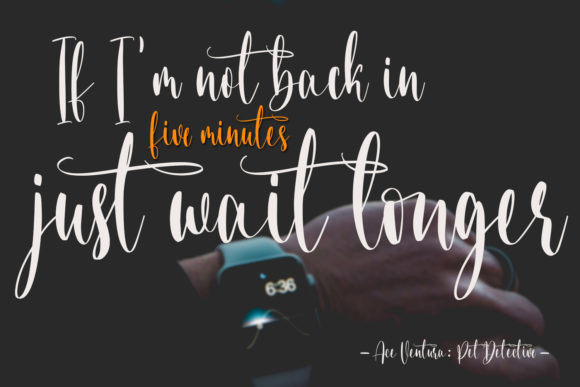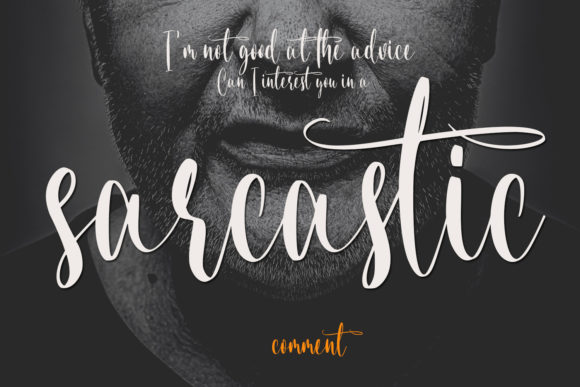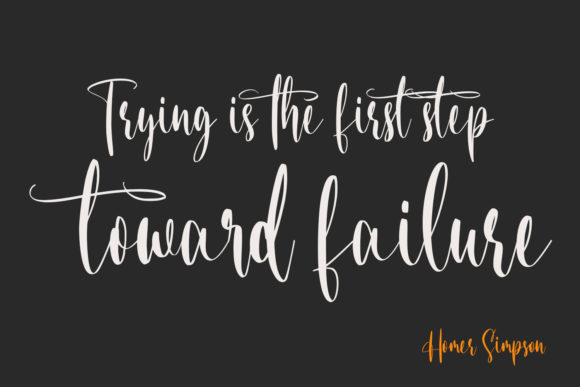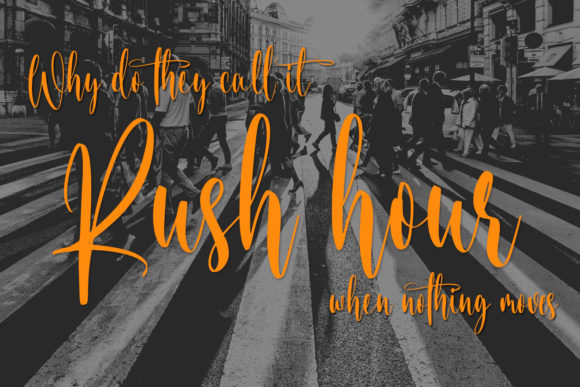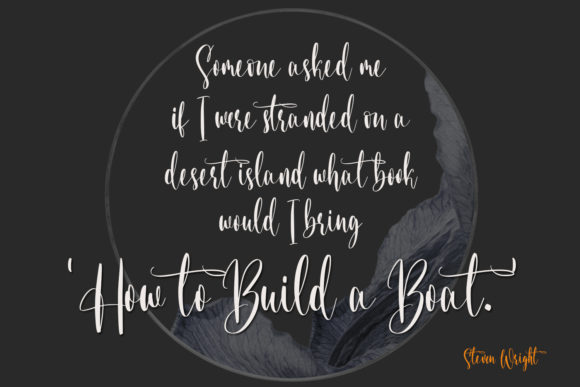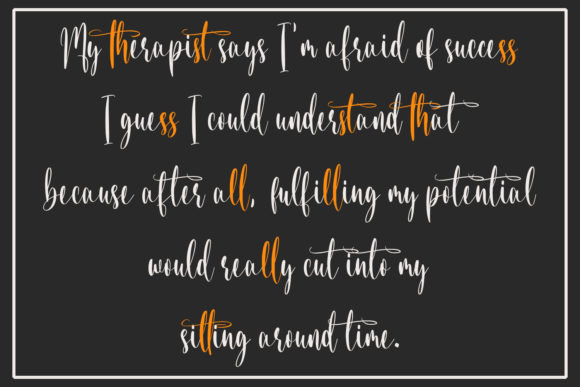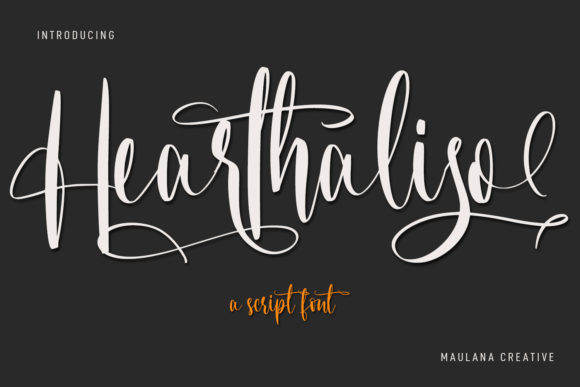
Hearthaliso Font: Elevate Your Designs with Elegance and Sophistication
In the world of typography, fonts play a crucial role in conveying the tone and personality of a design. For designers and crafters seeking to add a touch of elegance and sophistication to their projects, the Hearthaliso font is an exceptional choice. This fancy flourishing script font is designed to make a statement, featuring thin yet high contrast strokes, fun characters with ligatures and alternates, and a versatility that makes it suitable for a wide range of applications.
What Makes Hearthaliso Font Stand Out?
Hearthaliso is not just another script font; it’s a carefully crafted typeface that stands out due to its unique characteristics. Its thin yet high contrast strokes give it a luxurious feel, perfect for designs that require a touch of sophistication. The font also includes a range of fun characters, ligatures, and alternates, allowing designers to add personality and flair to their work.
Key Features of Hearthaliso Font
- Thin yet High Contrast Strokes: The font’s strokes are designed to be thin yet highly contrasting, giving it a elegant and refined appearance.
- Fun Characters: Hearthaliso includes a variety of fun and playful characters that can add personality to any design.
- Ligatures and Alternates: The font features ligatures and alternates, allowing designers to create unique and customized text.
- Versatility: Hearthaliso is suitable for a wide range of applications, from branding and advertising to packaging and stationery.
Whether you’re a professional designer or a crafter looking to add a personal touch to your projects, Hearthaliso font is an excellent choice. Its elegance and sophistication make it perfect for:
- Branding and Logo Design: Create a lasting impression with a custom logo that exudes luxury and refinement.
- Wedding and Event Stationery: Add a touch of elegance to your wedding invitations, menus, and other event materials.
- Packaging Design: Elevate your product packaging with a sophisticated and eye-catching design.
- Digital and Print Media: Use Hearthaliso in your digital and print media, such as brochures, flyers, and social media graphics.
Tips for Using Hearthaliso Font Effectively
To get the most out of Hearthaliso font, here are some tips to keep in mind:
- Pair it with a Simple Font: Combine Hearthaliso with a simple font to create a striking contrast and add visual interest.
- Use it Sparingly: Use Hearthaliso font sparingly to create emphasis and add a touch of elegance to your design.
- Experiment with Ligatures and Alternates: Take advantage of the font’s ligatures and alternates to add personality and uniqueness to your text.
In conclusion, Hearthaliso font is an exceptional choice for designers and crafters seeking to add a touch of elegance and sophistication to their projects. Its unique features, versatility, and luxurious feel make it perfect for a wide range of applications. With Hearthaliso, you can elevate your designs and create something truly extraordinary.